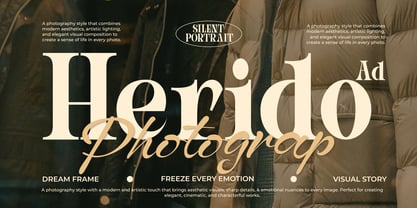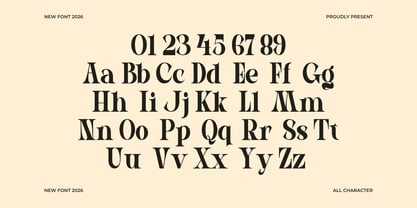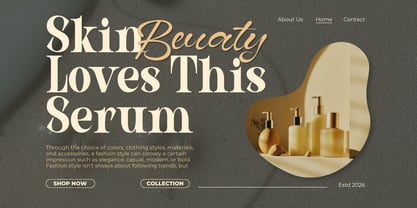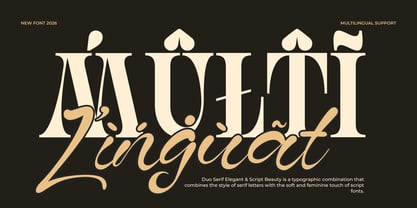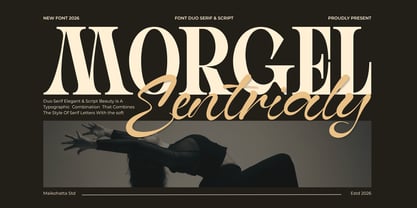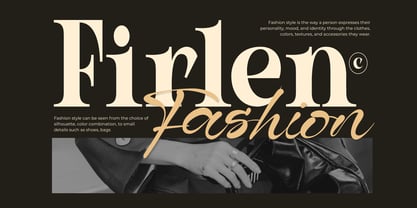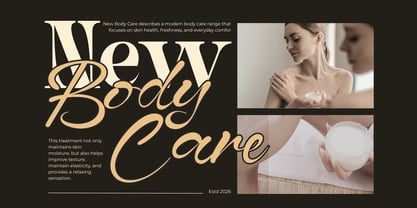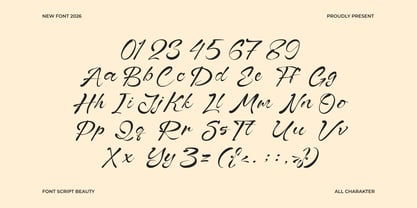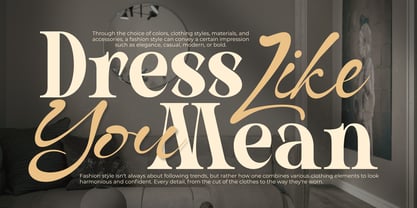
Morgel Eentrialy
por Maikohatta
La familia tipográfica Morgel Eentrialy fue diseñada por Gilang Ternadho y publicada por Maikohatta. Morgel Eentrialy contiene 2 estilos y opciones de paquete familiar. Más información sobre esta familia
Introducing our new product Morgel Eentrialy – Elegant Serif Duo Font
Morgel Eentrialy is a sophisticated serif duo font that combines timeless elegance with modern luxury aesthetics. Designed with a perfect harmony between refined serif characters and graceful signature script accents, this font duo creates a stunning visual identity for premium branding projects.
Inspired by high-end fashion editorials, luxury magazines, and elegant lifestyle branding, Morgel Eentrialy delivers a classy and stylish appearance that feels both artistic and professional. The sharp serif details blend beautifully with the smooth handwritten script, making it ideal for creating eye-catching typography compositions.
Perfect for logos, wedding invitations, beauty brands, boutique packaging, cosmetic products, social media templates, photography branding, editorial layouts, and elegant advertising designs.